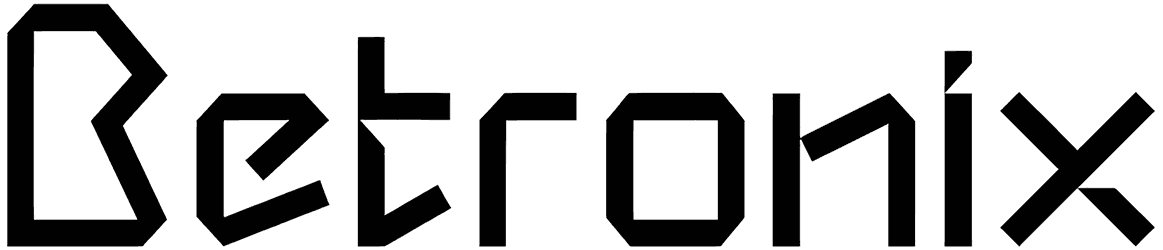
Desert is an industrial font with a retro-futuristic feel and a unique metallic design! It delivers techno futuristic vibes, with its mysterious characters that are creative. This font reminds you of aliens or vintage-style sci-fi movies, by utilizing it you will have one powerful typography.
The letterforms include A to Z capitalized letters that can be challenging to read, while it leaves out lower case alphabets, numbers, and punctuations. Desert fits well in movies, book titles, games, posters, and logos.